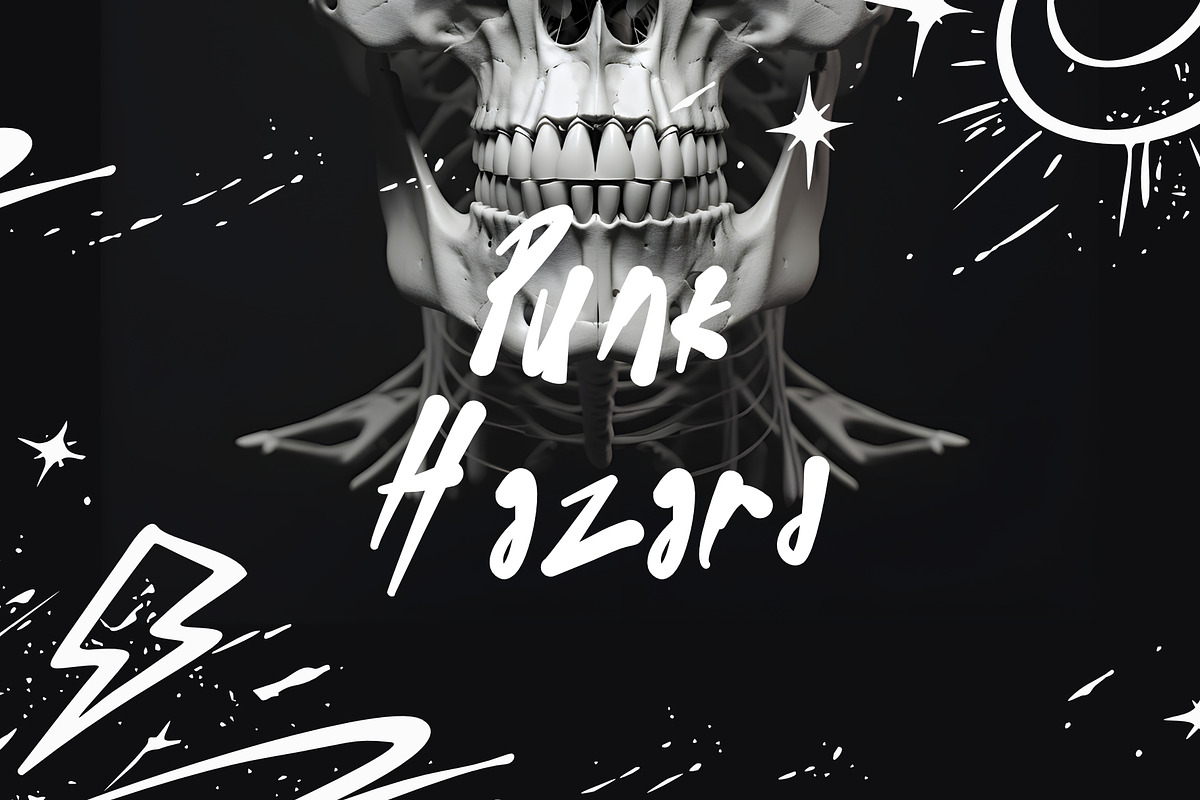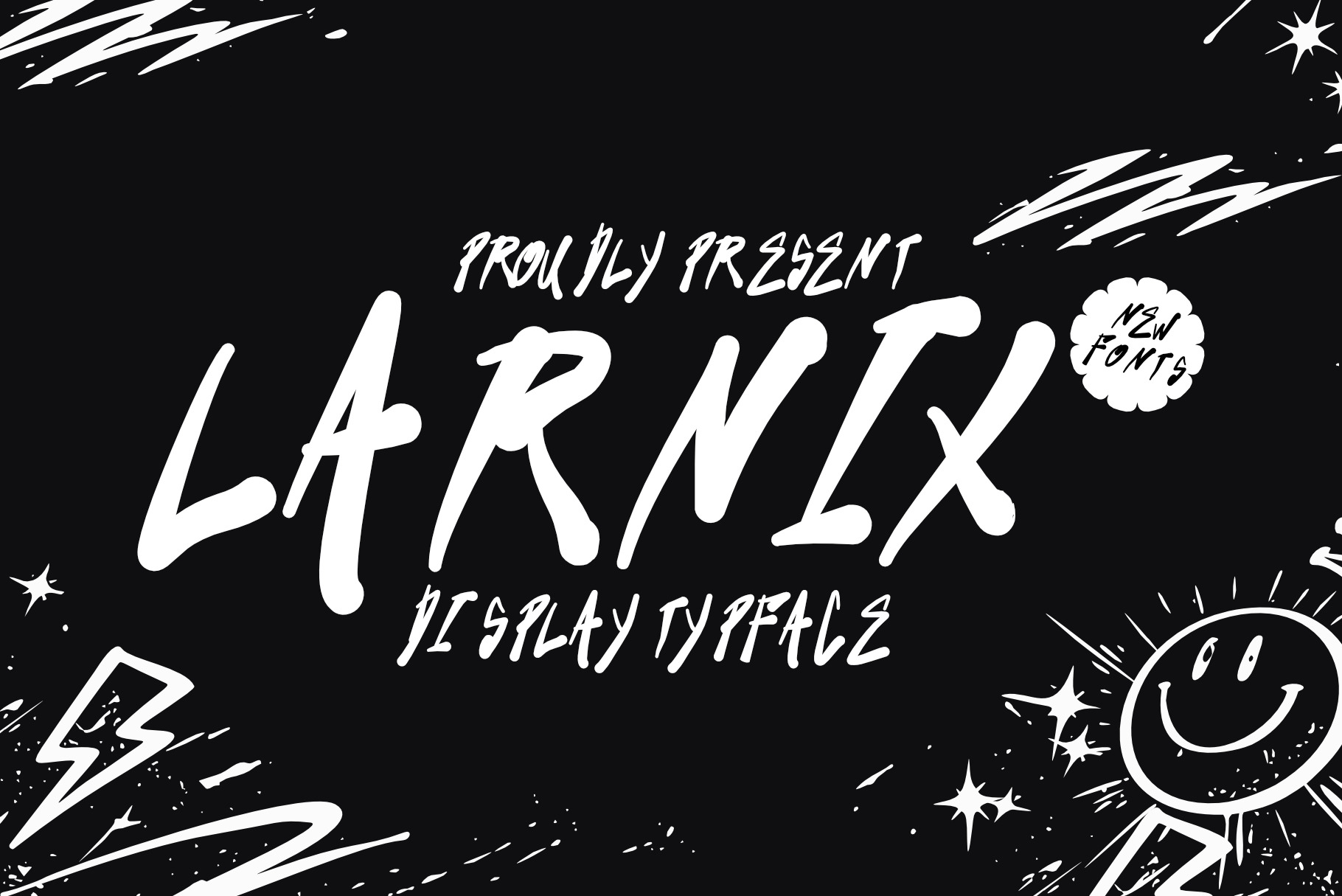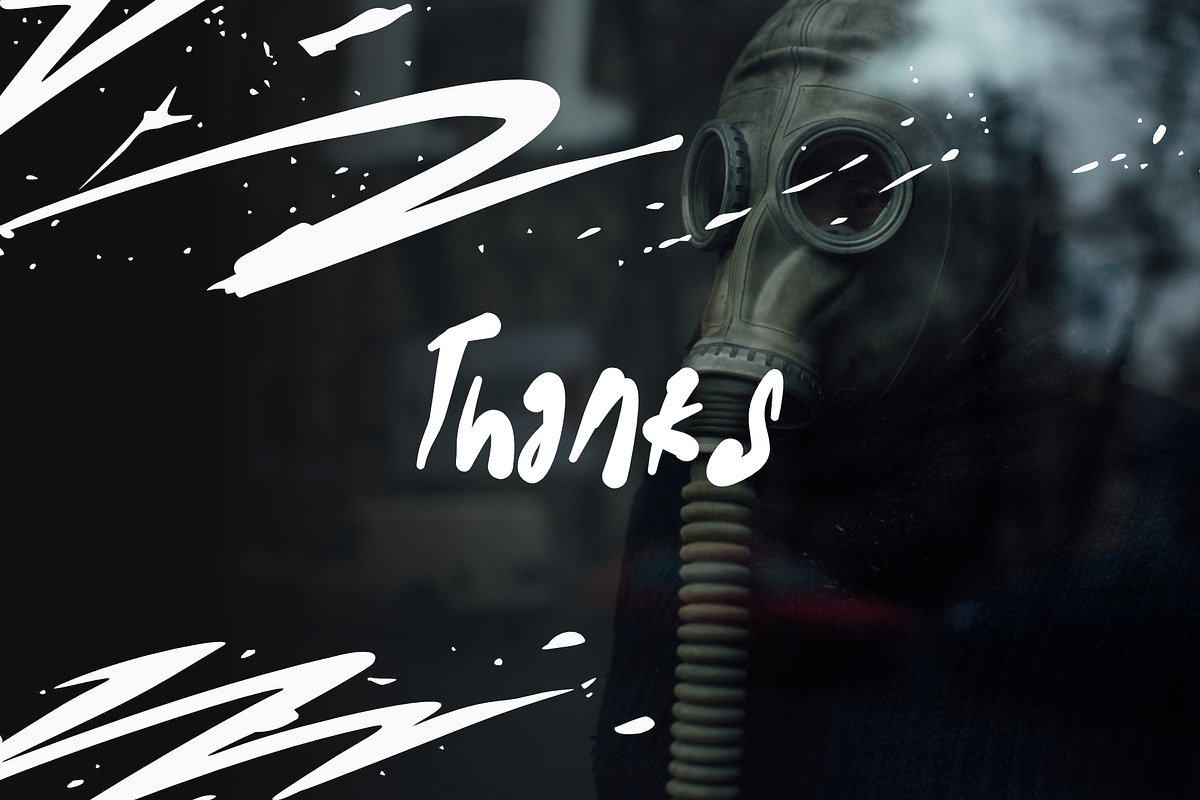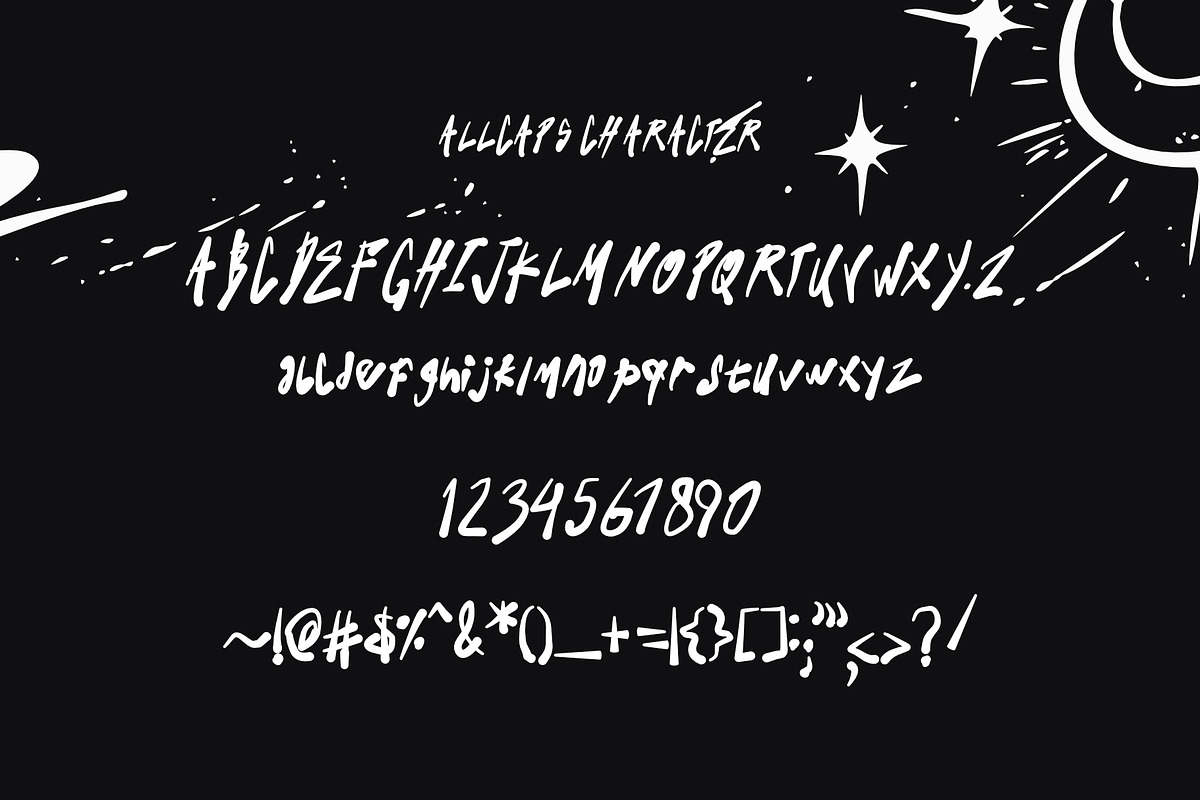
Larnix Font
Larnix A bold handwritten display font with a playful brush style, perfect for modern posters, creative branding, street-style designs, and eye-catching typography with a fun doodle vibe.